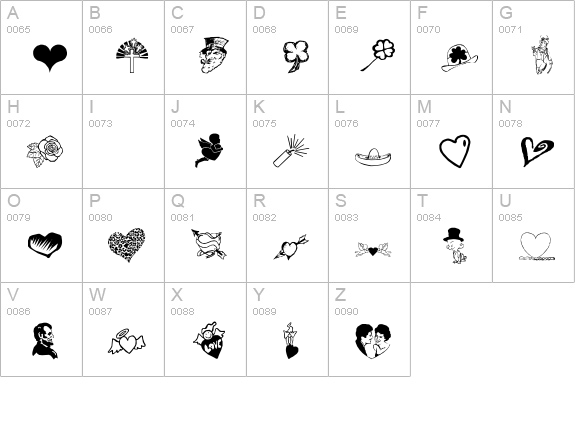
lpholidays Font Details
The lpholidays font is a whimsical and playful typeface that is perfect for adding a touch of fun to your designs. Its unique and eye-catching style makes it ideal for a variety of projects, from invitations and greeting cards to posters and social media graphics. With its cheerful and charming appearance, lpholidays is sure to bring a smile to anyone who sees it. Best of all, this delightful font is available for free download at FontsMarket.com. Whether you're a professional designer looking to add a touch of creativity to your work or someone simply looking to spice up their personal projects, lpholidays is a fantastic choice. Download it today and let your creativity soar with this delightful and charming font.